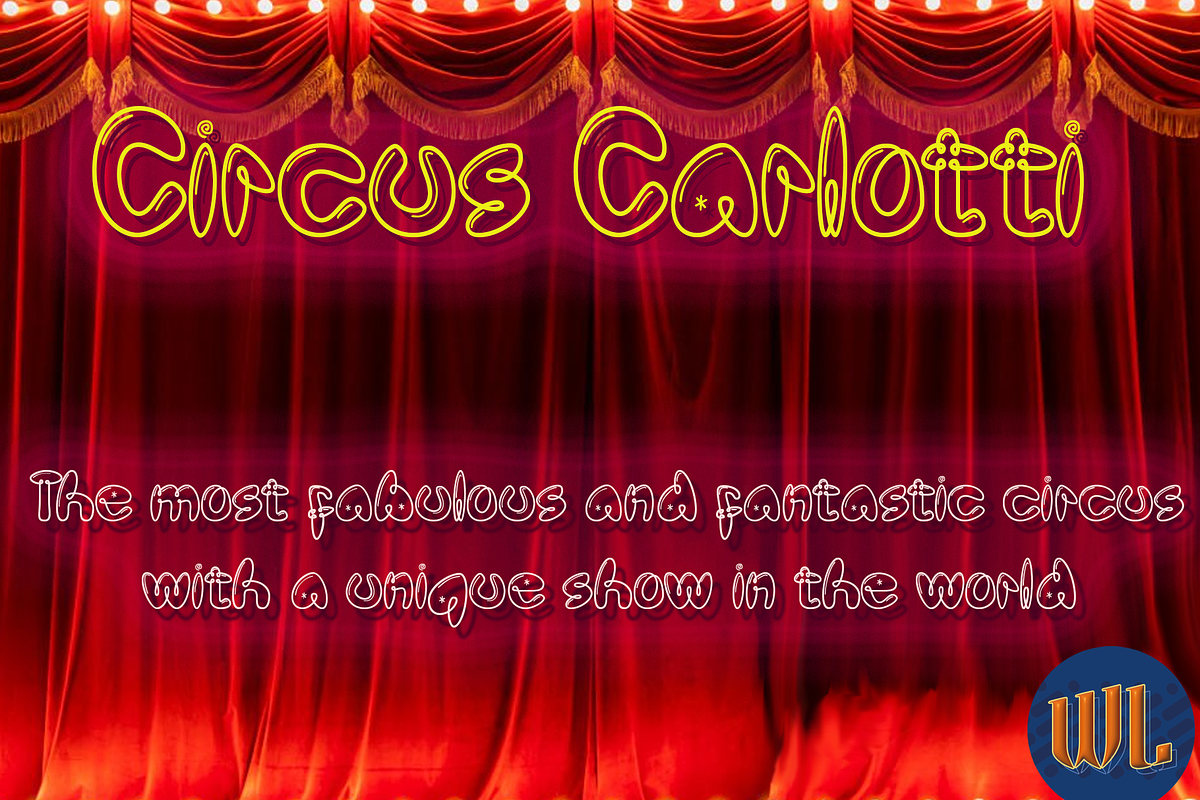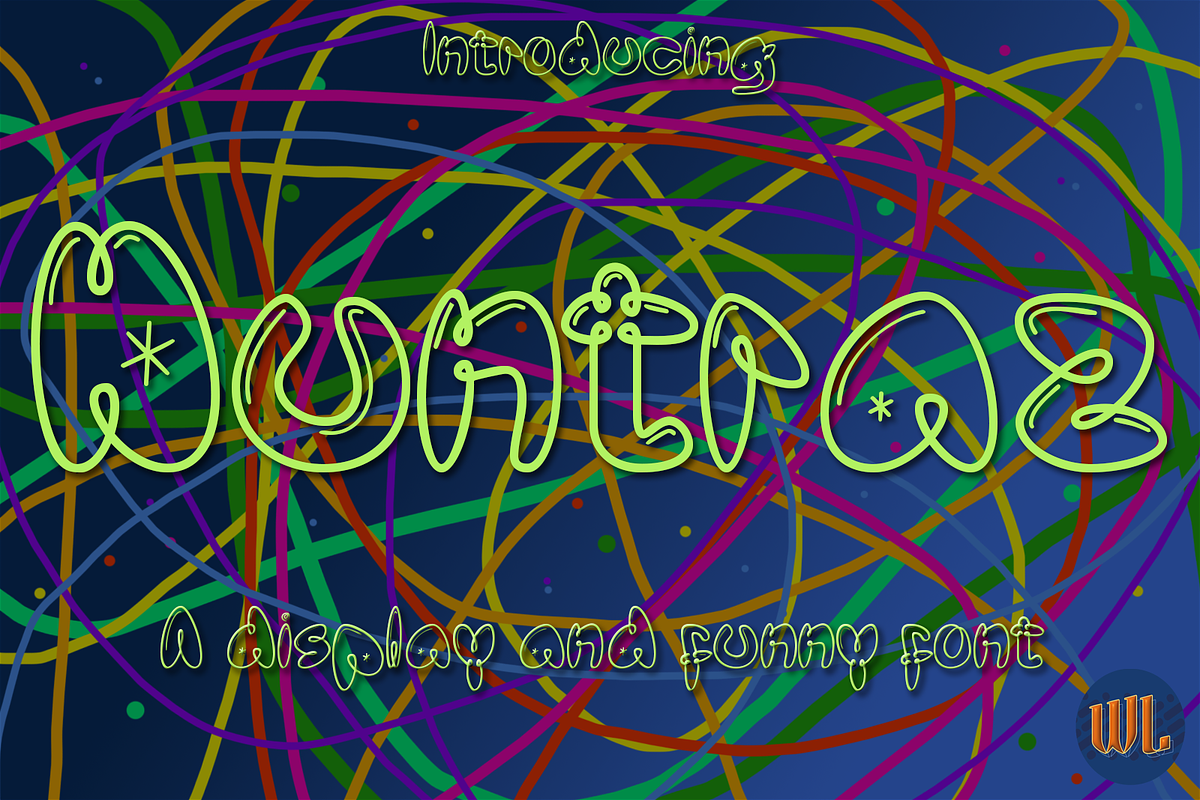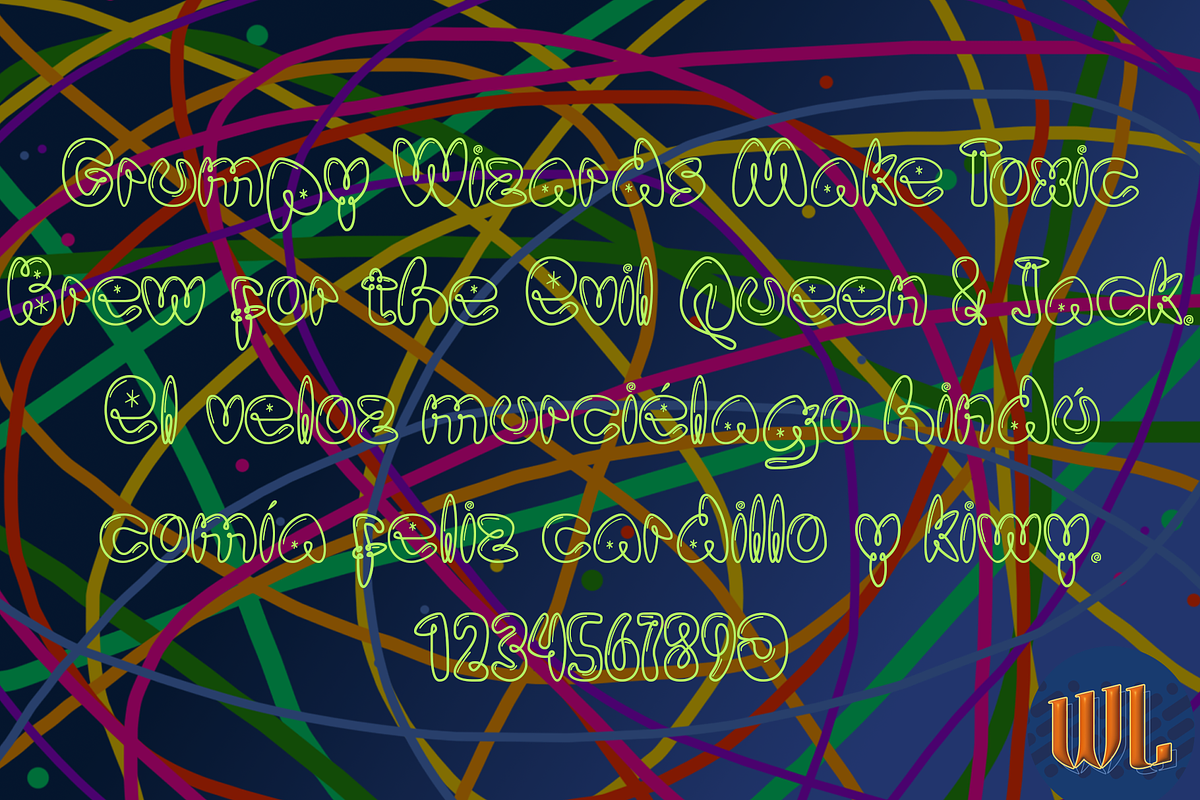
Duntraz
Experience the playful charm of Duntraz, a delightful display font perfect for adding a touch of childlike wonder to any creative project. Crafted meticulously by Alberto Villanueva in 2026, Duntraz features a unique single-line design, resulting in an aesthetically pleasing and whimsical appeal. Ideal for crafting enchanting child-themed designs, Duntraz can bring a fun and animated element to any visual landscape. Discover the merriment of letterforms with Duntraz, your key to unlock a world of creative enchantment.